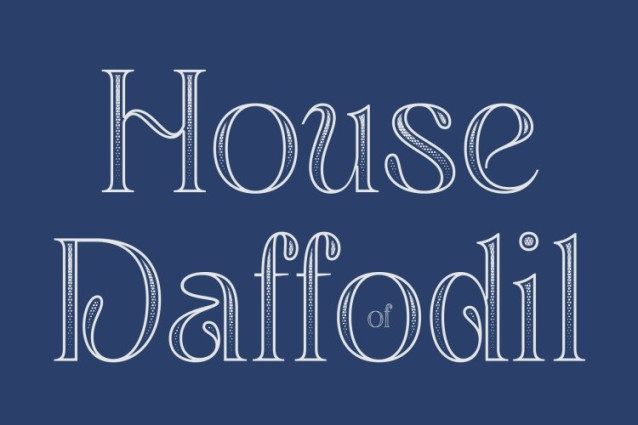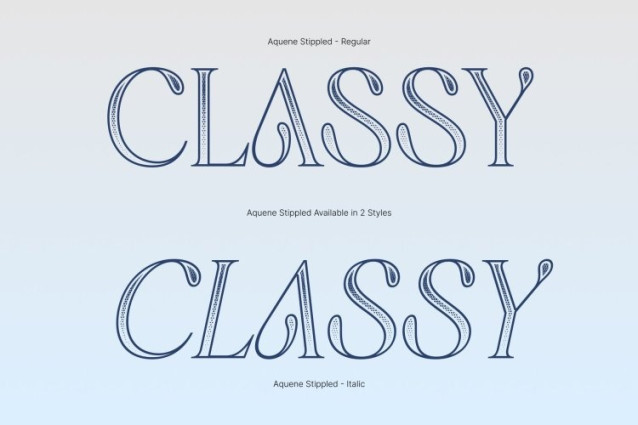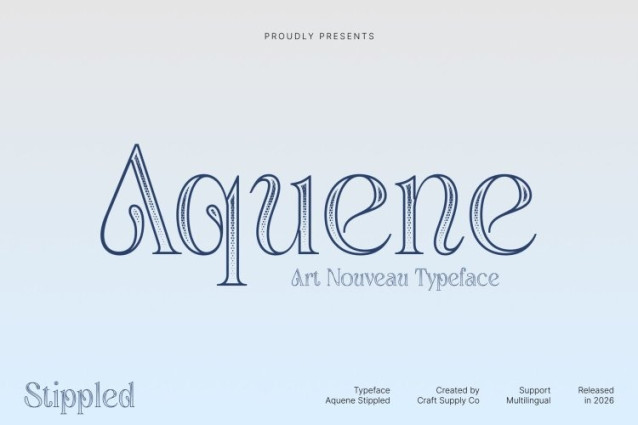
Aquene Stippled Font
Aquene Stippled Font – This is a meticulously crafted display serif font designed to captivate attention through its graceful flow and refined structure. Enhanced with a dense stippled texture inspired by classic ink-dot and stippling illustration techniques, the font gains a handcrafted, artistic depth that gives each letter a rich and timeless character. The result is a typeface that feels bold, elegant, and visually compelling.
Unique Flow for Captivating Headlines
This font stands out with its elegant curves and smooth, confident lines. The flowing letterforms create a natural rhythm that draws the eye, while the stippled detailing adds softness and texture, reinforcing its vintage-inspired charm. This makes it perfect for eye-catching headlines and titles that leave a memorable impression.
Versatile for Creative and Promotional Design
From posters and banners to website headers, logos, and social media graphics, this font adapts effortlessly to various design contexts. Its artistic texture enhances branding materials and promotional visuals, giving them depth and personality while maintaining a polished, professional look.
Exceptional Readability with Textured Character
Despite its decorative stippled surface, this font maintains excellent readability at different sizes. Whether used for large display compositions or refined typographic accents, the font ensures clarity without sacrificing its expressive, handcrafted feel.